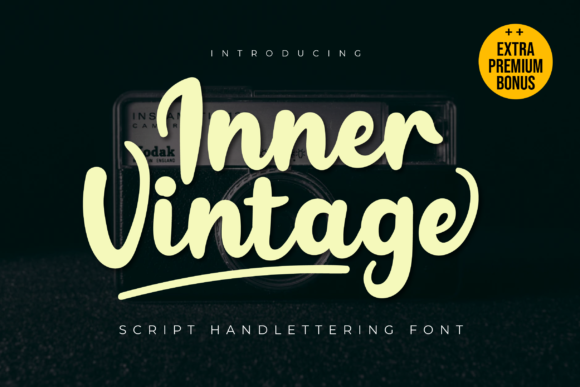
Enter the world of Inner Vintage Font, a delightful display font brimming with charm and character. This captivating script font, crafted by the talented twinletter, invites you to embrace the essence of Christmas with its warm and inviting style.
Inner Vintage Font's natural and unique flair lend it an enchanting versatility, making it an ideal choice for an array of design projects. Unleash your creativity and let your imagination run wild as you explore the endless possibilities it presents.
With Inner Vintage Font, you'll find the perfect font to capture the magic of Christmas in your designs. Its charming curves and playful swashes add a touch of whimsy and joy to any project, whether it's a heartfelt holiday greeting, an eye-catching logo, or an enchanting social media post.
But Inner Vintage Font's allure extends beyond the festive season. Its versatility shines through in various design applications, from elegant wedding invitations to whimsical children's books. Its PUA encoding ensures effortless access to a treasure trove of glyphs and swashes, empowering you to add intricate details and flourishes to your designs with ease.
So, embark on a creative journey with Inner Vintage Font, the font that embodies the spirit of Christmas and unlocks a world of design possibilities. Let your imagination soar and create designs that radiate warmth, joy, and a touch of vintage charm.